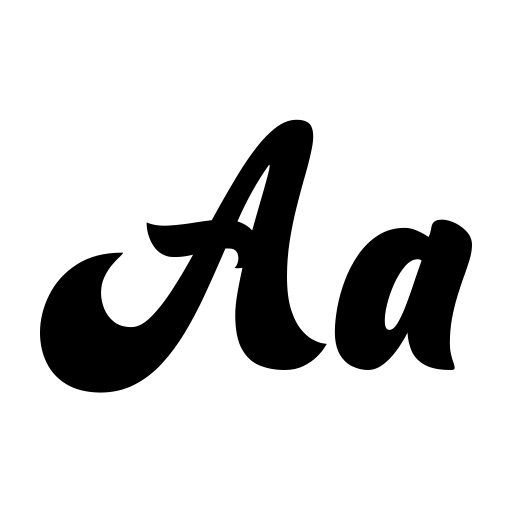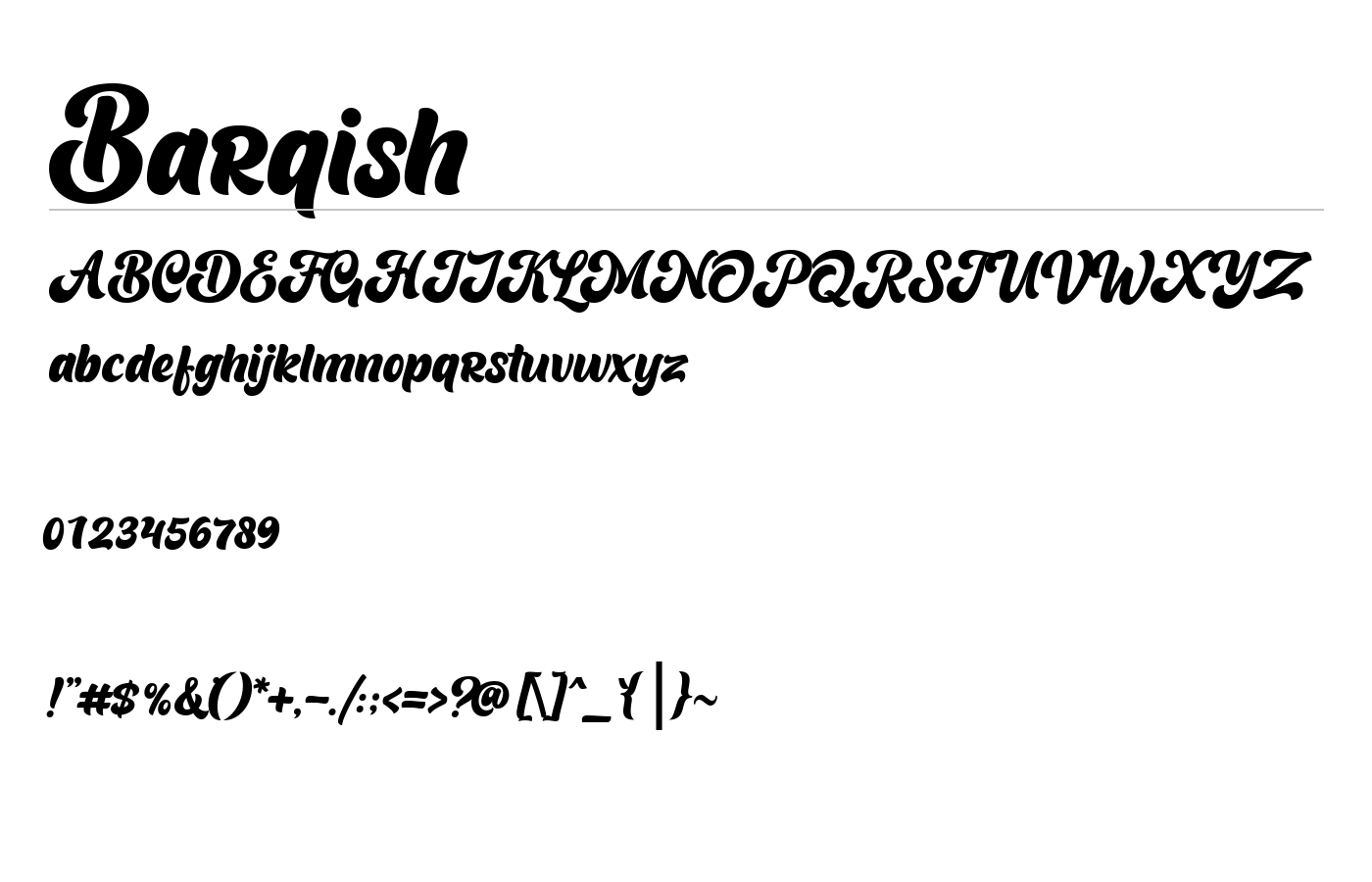
Barqish is a bold and lively script font featuring smooth, rounded strokes and a playful yet elegant character. Its moderate contrast and unique letterforms, such as the single-story lowercase “a” and flowing uppercase curves, make it perfect for branding, headlines, and creative projects that seek a friendly, approachable vibe with a touch of sophistication. This font works well in logos, packaging, and editorial designs where a bold, expressive personality is desired.
Barqish Font
About Barqish Font
| Font family | Barqish Font |